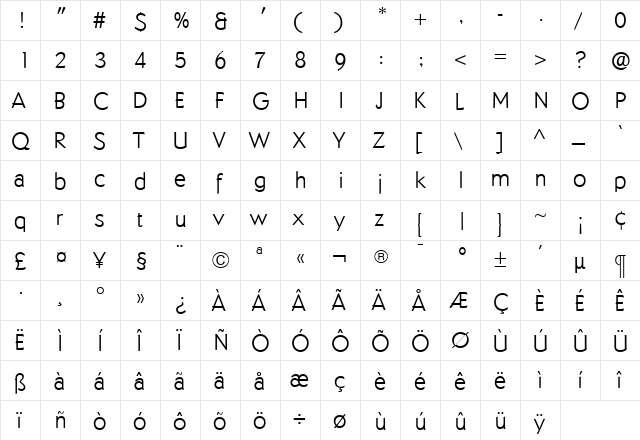
DundeeLight Light
Design Context for DundeeLight Typeface
DundeeLight takes a measured approach to typography — its balanced proportions and neutral character make it a reliable workhorse for both digital and print work. The delicate stroke weight brings airiness and refinement to layouts.